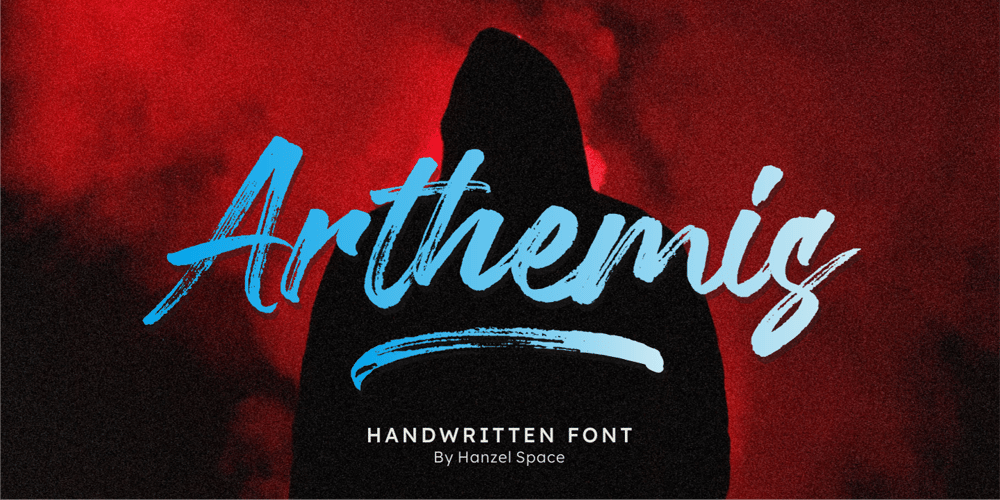
Arthemis Font Family was designed by Hanief Farandi and published by Hanzel Space. Arthemis contains 1 styles and family package options. Featuring the latest font “Arthemis Handwriting Font”This font is made with original handwriting, with a quick technique so that the font looks natural and textured. Each letter has a character, so it looks different from a regular font. This font is very suitable for use as movie titles, branding, packaging, quotes, taglines, trademarks, logos, and other promotional media.If you are interested in buying this font for your design needs, then you will get 3 types of files that will be installed on your computer. The attached files are: Artemis OTF Arthemis TTF Artemis WOFF Opentype feature, including 5 Set Alternates, Ligatures, End Swash, and Underlines. PUA Encoded Foreign Languages Support: ÀÁÂÃÄÅÇÈÉÊËÌÍÎÏÐÑÒÓÔÕÖØÙÚÛÜÝßàáâãäåæçèéêëìíîïðñòóôõöøùúûüýÿ Happy Designing!